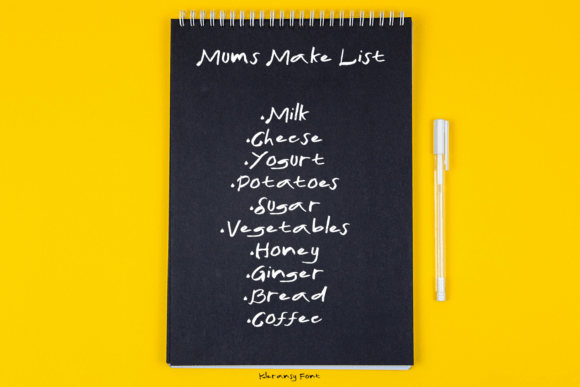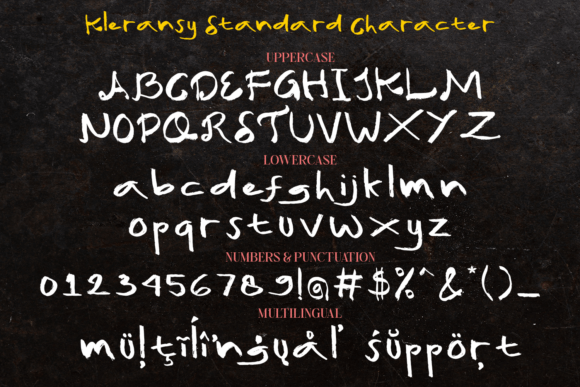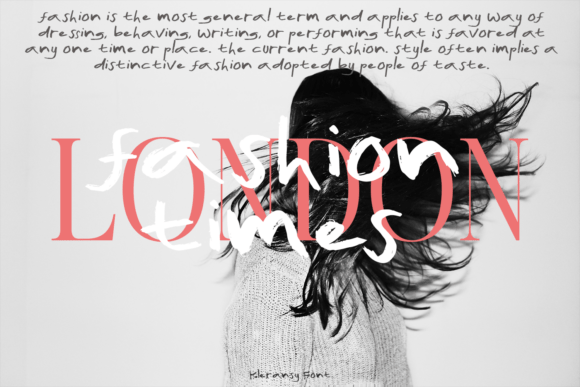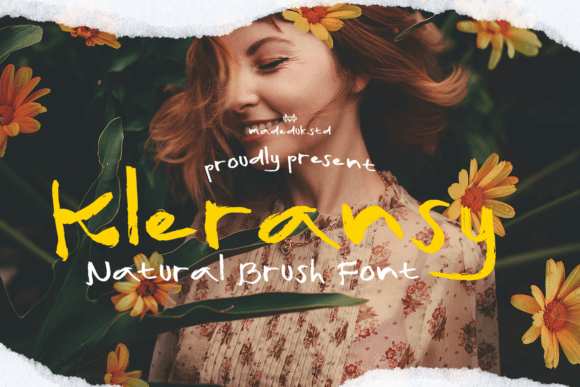
Introduction to Kleransy Regular Font
Kleransy is a bold and expressive natural brush font that captures the spontaneity of real brushstrokes with raw charm and personality.
Its rugged edges, erratic curves, and handcrafted imperfections bring an untamed energy to your designs, making it perfect for work that demands authenticity and impact The characters are full of life, with uneven baselines and playful shifts that mimic freehand movement.